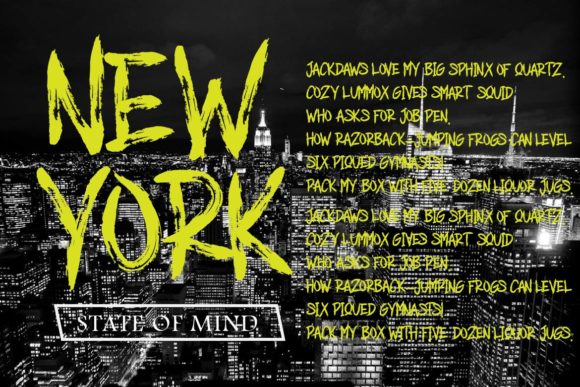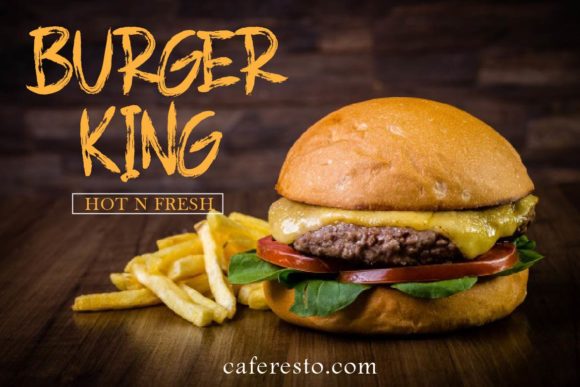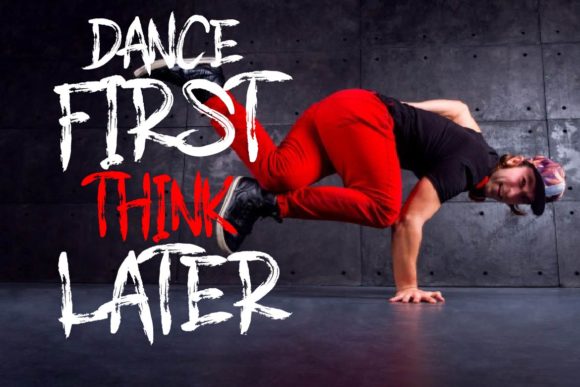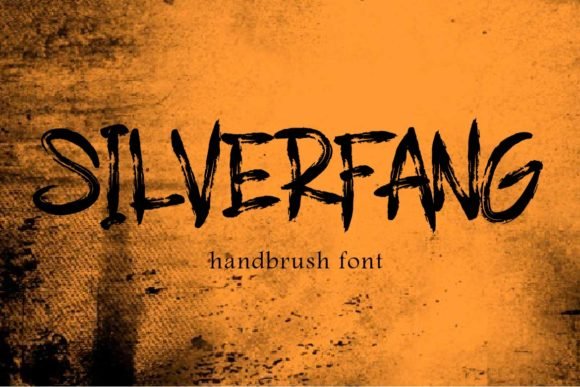
Introduction to Silverfang Font
Silverfang is a natural and authentic font that’s great for delivering any message with confidence and style.
Get inspired by its unique charm .
Key Features of Silverfang Font
Why Choose Silverfang Font?
Silverfang Font offers exceptional quality and versatility, making it a valuable addition to your design toolkit. Whether you’re creating for personal projects or commercial use, Silverfang Font delivers professional results.